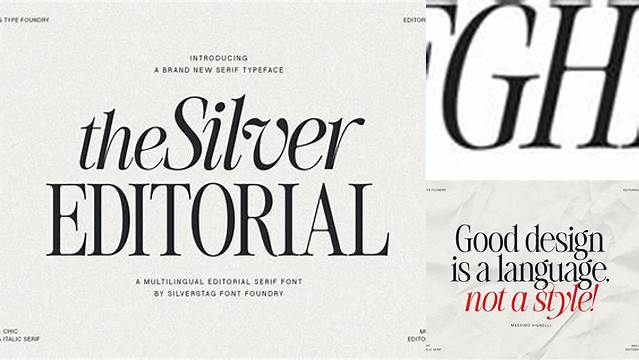
Hey guys! Are you on the hunt for a font that screams elegance, sophistication, and a touch of the classic editorial flair? Well, you've landed in the right spot! Let's dive deep into the world of The Silver Editorial Italic Font, a typeface that's been making waves in the design community. In this comprehensive guide, we'll explore what makes this font so special, where you can snag it for free, and how to best utilize it in your projects. So, buckle up and let's get started!
What Makes The Silver Editorial Italic Font Stand Out?
When it comes to typography, the choices can feel overwhelming. Hundreds, if not thousands, of fonts are available at our fingertips, each with its unique personality and purpose. But The Silver Editorial Italic Font manages to cut through the noise, thanks to its distinctive characteristics.
First and foremost, the italic styling lends it a sense of fluidity and movement. Unlike a regular, upright font, italics have a natural slant that adds a dynamic quality to the text. This makes it perfect for headlines, pull quotes, and any other instances where you want to draw the reader's eye. The italic nature of this font exudes a certain je ne sais quoi, a touch of elegance and refinement that's hard to ignore. The gentle slant is not just a stylistic choice; it’s a subtle nod to traditional calligraphy, giving it an almost handwritten feel while maintaining a sharp, professional edge. This blend of classic and contemporary aesthetics is what makes The Silver Editorial Italic Font so versatile and appealing.
Secondly, the editorial quality of the font means it's designed with readability in mind. Editorial fonts are crafted to look good in large blocks of text, such as articles, magazines, and books. The Silver Editorial Italic Font is no exception. Its letterforms are carefully balanced, ensuring each character is distinct and legible, even at smaller sizes. This is crucial for maintaining the reader's attention and preventing eye strain. Think about how many times you've abandoned an article because the font was just too difficult to read. The designers of this font have clearly considered the reader’s experience, making it a joy to engage with long-form content. The Silver Editorial Italic Font makes reading a seamless, almost subconscious process, allowing the content to shine through without the distraction of poorly designed typography.
Beyond its technical aspects, the font's aesthetic appeal is undeniable. It strikes a harmonious balance between being stylish and functional, making it suitable for a wide array of design applications. Whether you're working on a sleek, modern website or a traditional print publication, The Silver Editorial Italic Font can seamlessly fit into your visual narrative. Its elegance doesn't come at the expense of approachability; rather, it enhances the overall tone and message of your content, adding a layer of sophistication without feeling overly pretentious. This versatility is a huge asset for designers who need a reliable typeface that can adapt to different styles and contexts.
In short, The Silver Editorial Italic Font stands out because of its italic flair, editorial readability, and overall aesthetic versatility. It's a font that's both beautiful and practical, a rare combination that makes it a valuable addition to any designer's toolkit.
The Silver Editorial Italic Font is a true gem in the world of typography. Its blend of classic elegance and modern readability makes it a versatile choice for a wide range of projects. By understanding its unique characteristics, knowing where to find it for free, and following best practices for its use, you can elevate your designs and create visuals that truly stand out. So go ahead, download this beautiful font, and let your creativity flow!